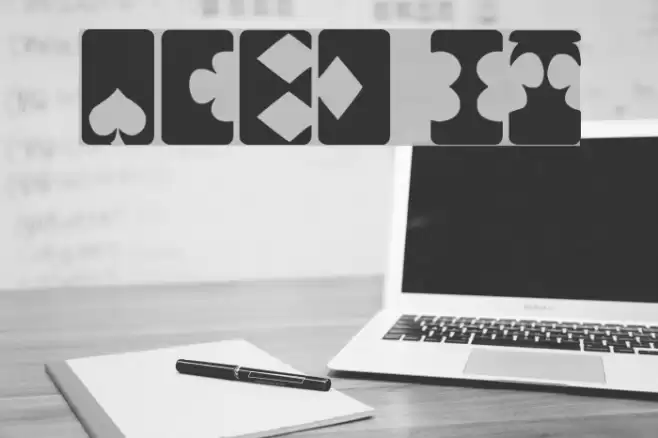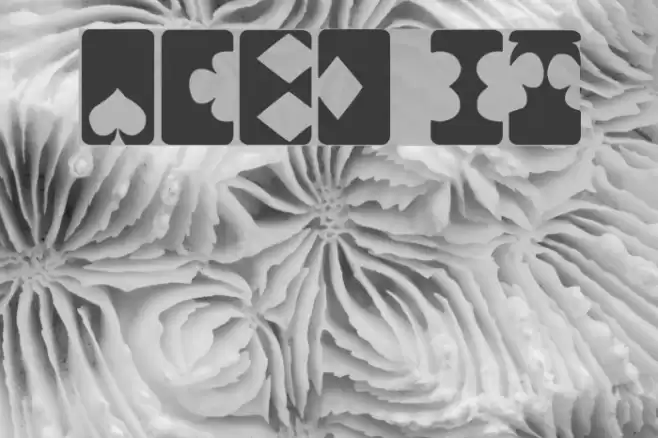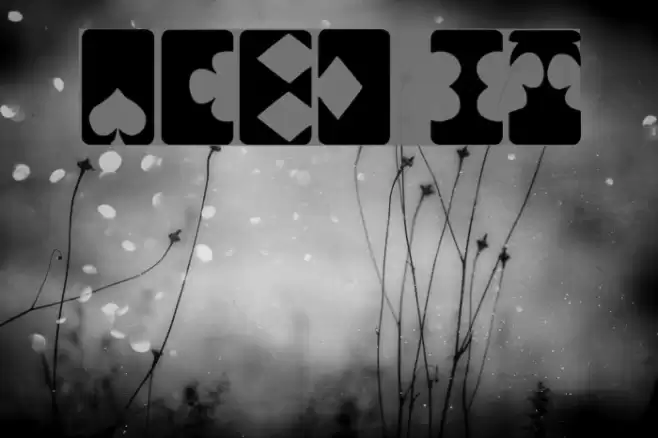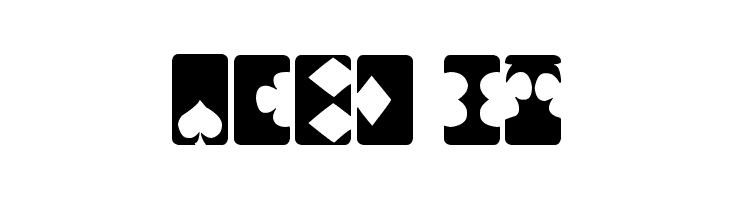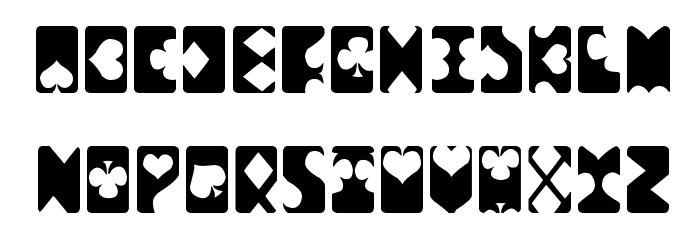
ACED IT Font
ACED IT Description
This font features a bold and playful design, incorporating elements from card suits such as spades, hearts, diamonds, and clubs into each character. The letters are enclosed in rectangular shapes, giving them a blocky appearance. The use of card suit symbols within the letters adds a decorative and thematic touch, making it ideal for projects related to gaming, casinos, or card games. The font's unique style is eye-catching and distinctive, with a strong visual impact that makes it suitable for headlines or logos. The characters are evenly spaced, maintaining a consistent look across the text.
A bold, card-themed decorative font with card suit symbols integrated into each character from Uncategorized fonts.
- Proposed Projects: Ideal for casino-themed designs, gaming logos, event posters, and playful branding.